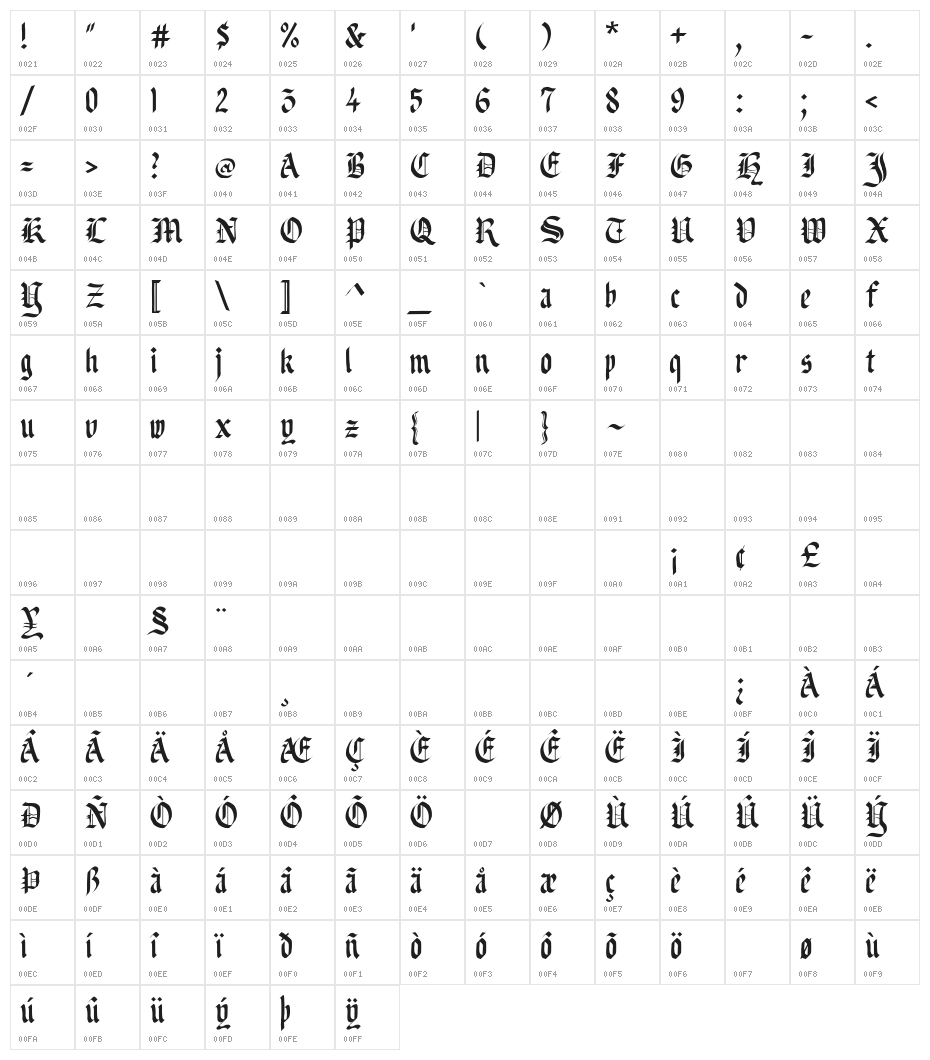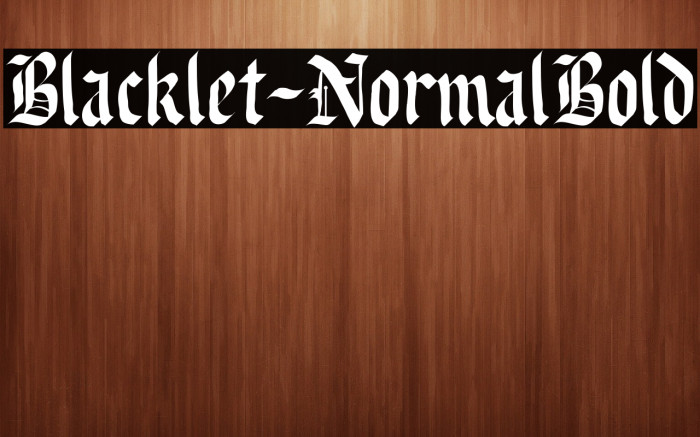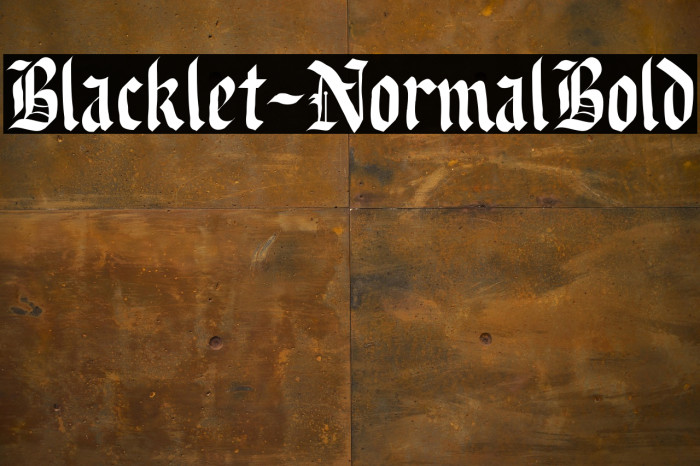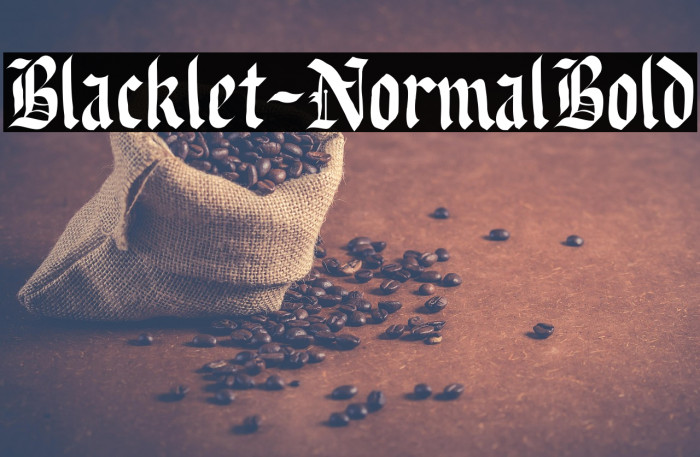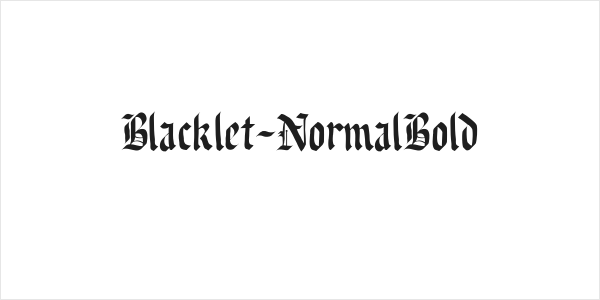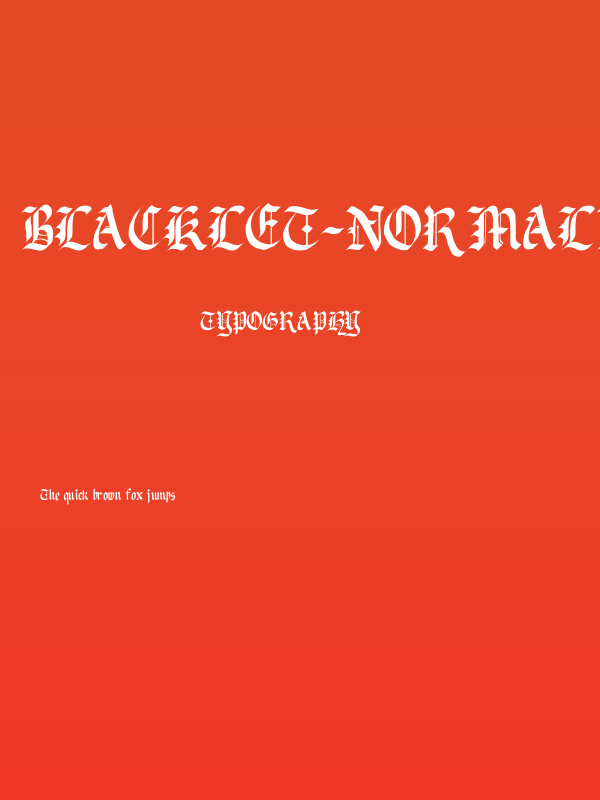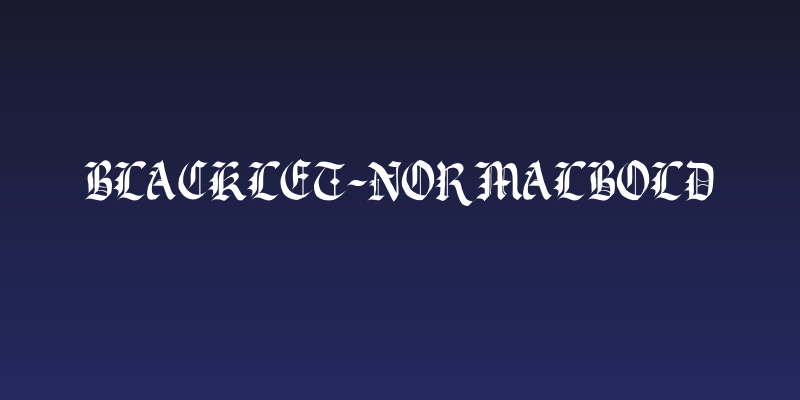
Blacklet-NormalBold Font
Blacklet-NormalBold Description
This font exhibits a traditional blackletter style, characterized by its ornate and intricate design. The letters have a distinct medieval appearance, with sharp, angular lines and elaborate flourishes. The uppercase letters are particularly decorative, featuring pointed serifs and complex curves. The lowercase letters maintain the same gothic aesthetic, with a consistent stroke width that adds to the font's bold presence. Numbers and special characters are designed to match the overall style, ensuring a cohesive look across all text. This font is ideal for projects that require a historical or dramatic flair.
| Proposed Projects | Suitable for historical documents, event invitations, book covers, and branding that requires a vintage or gothic touch. |